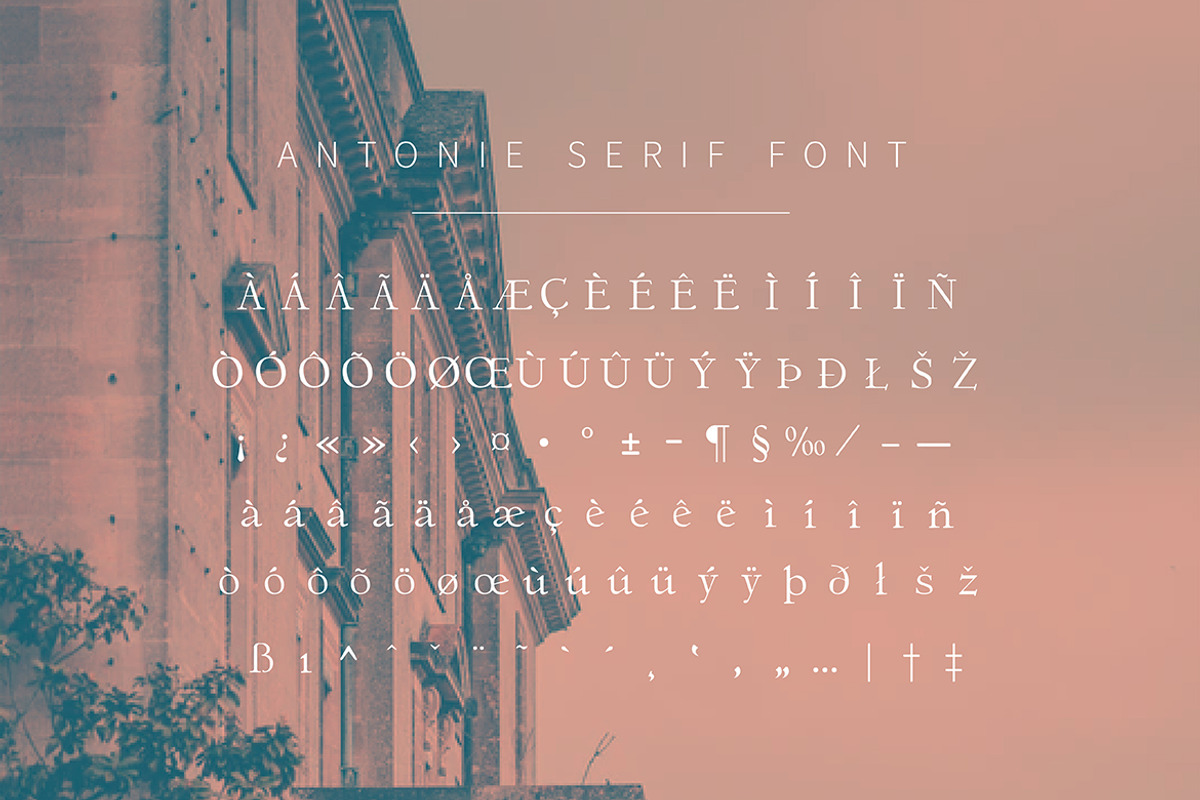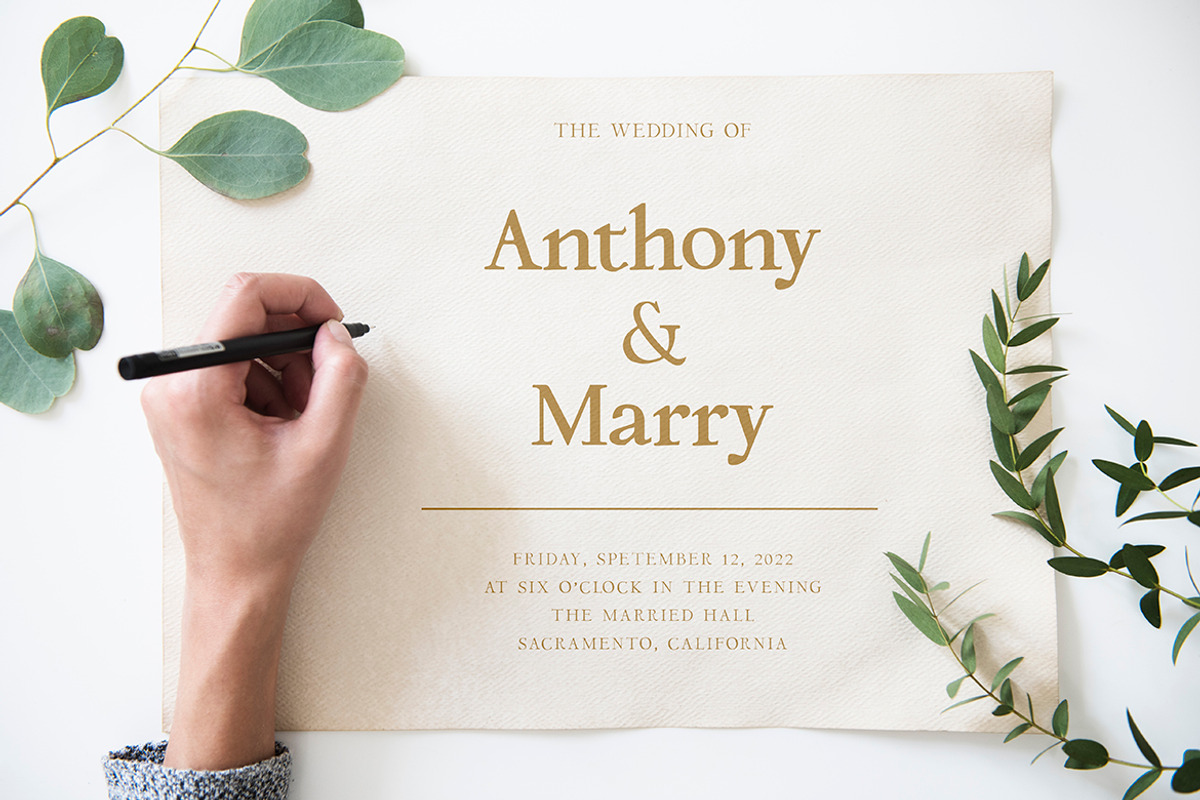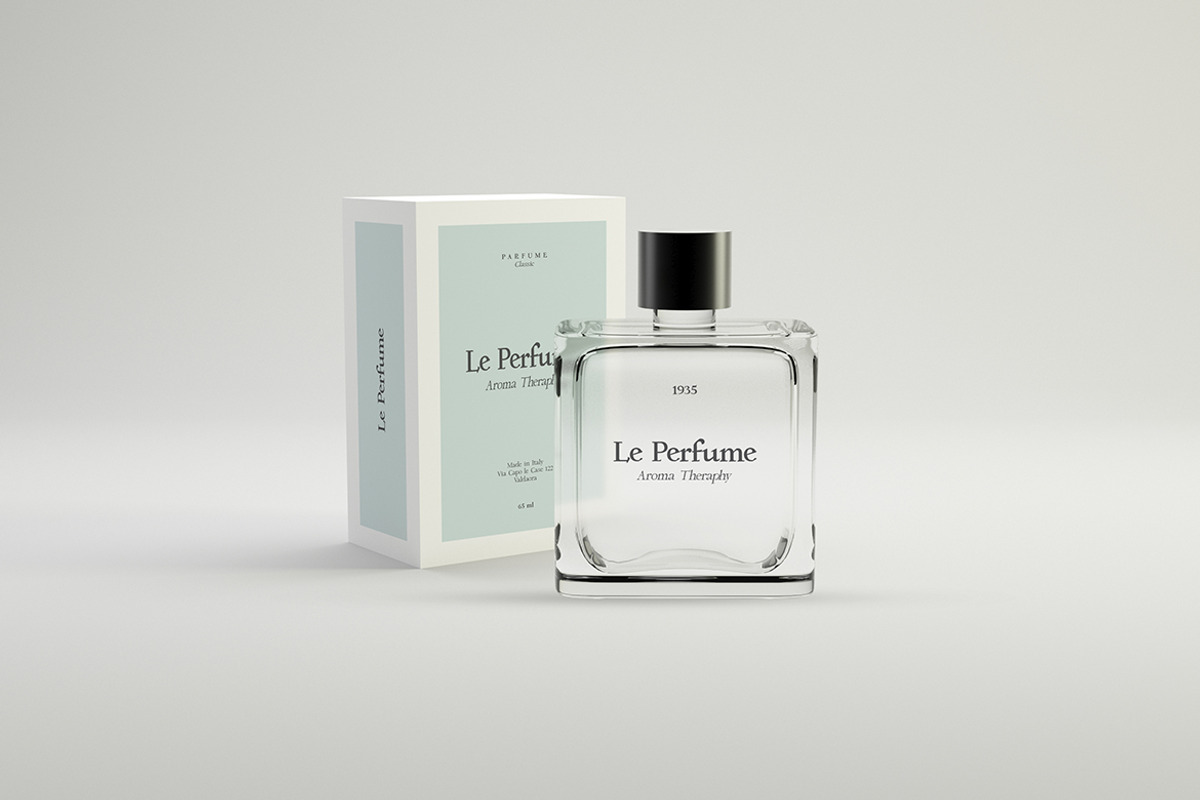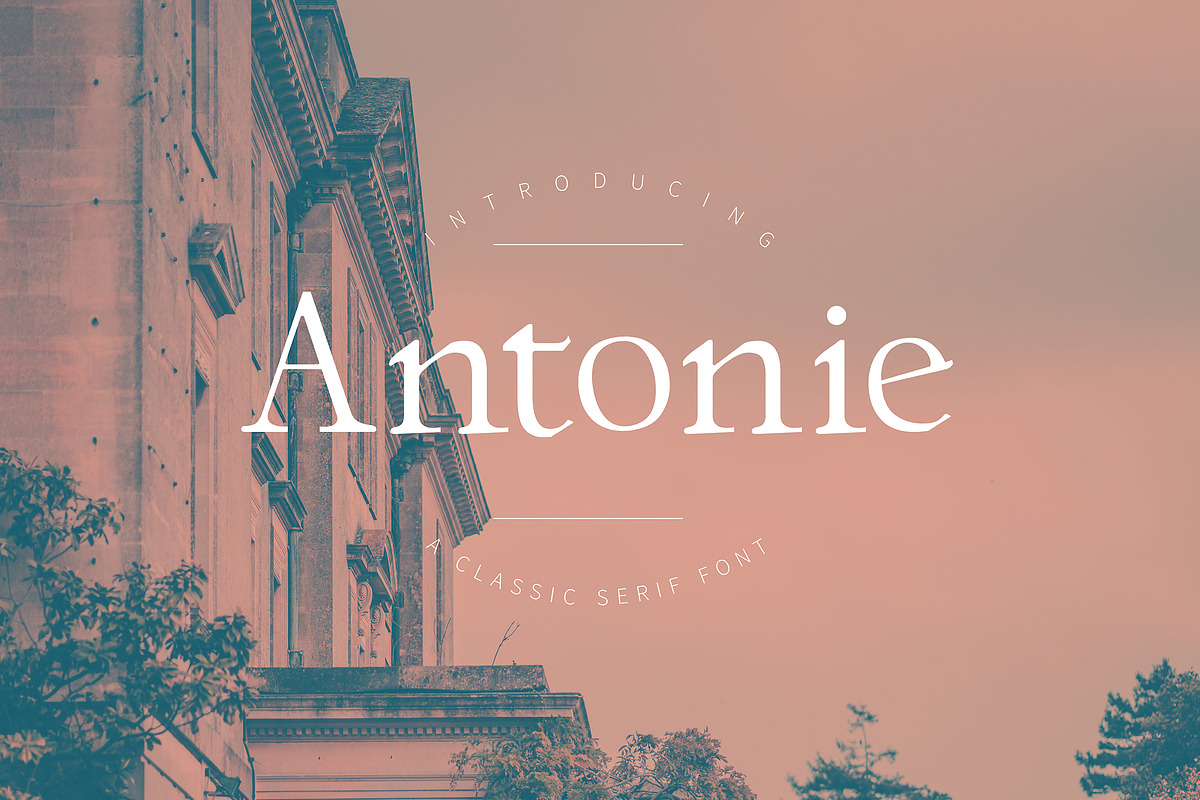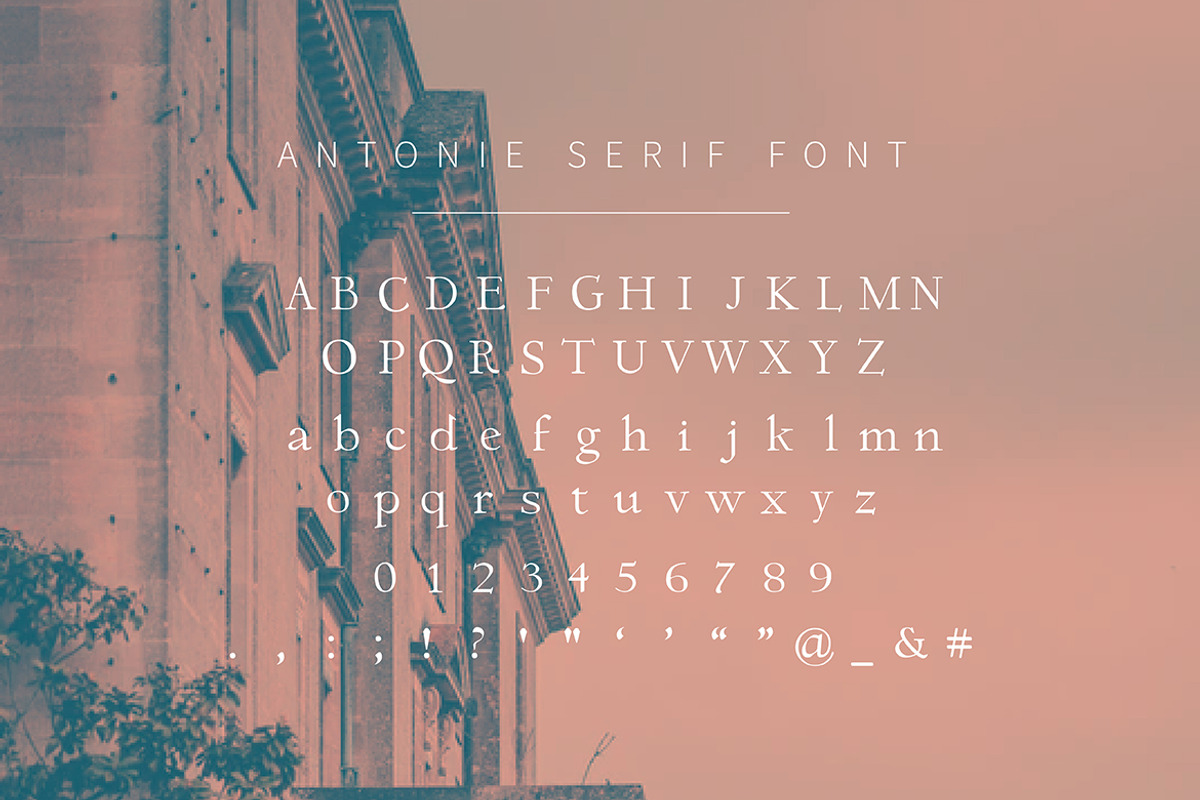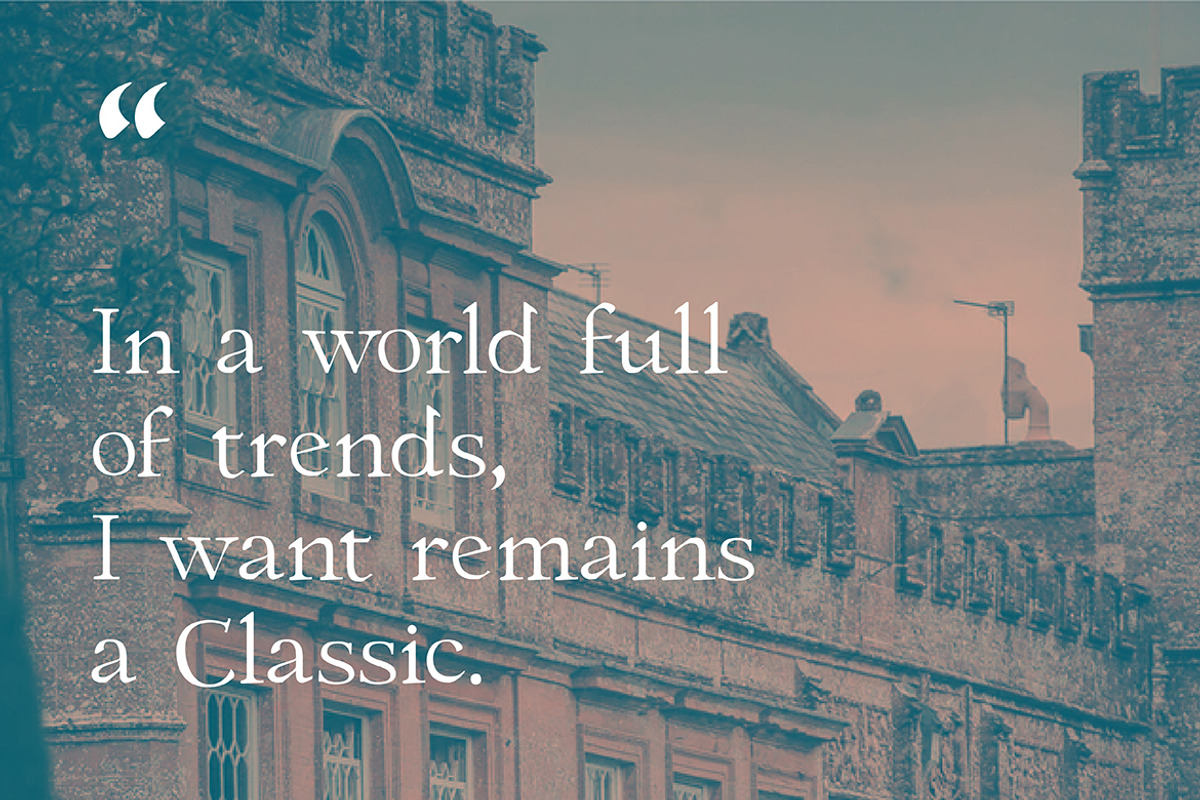
Antonie – Classic Serif Font
“ In a world full of trends, I want remains a classic “ The Antonie is a font which appears so minimal, and mundane to the eye, but it also encapsulates the idea of a well-presented classical font. The font features a classical serif style of writing, and embodies innocence so perfectly. It may not be extravagant to the eye, but that’s the font’s purpos. To provide you with a simple, classical, yet very elegant feel. It’s perfectly suitable for creating elegance, creating lifestyle magazines, titles and even as the font for you.